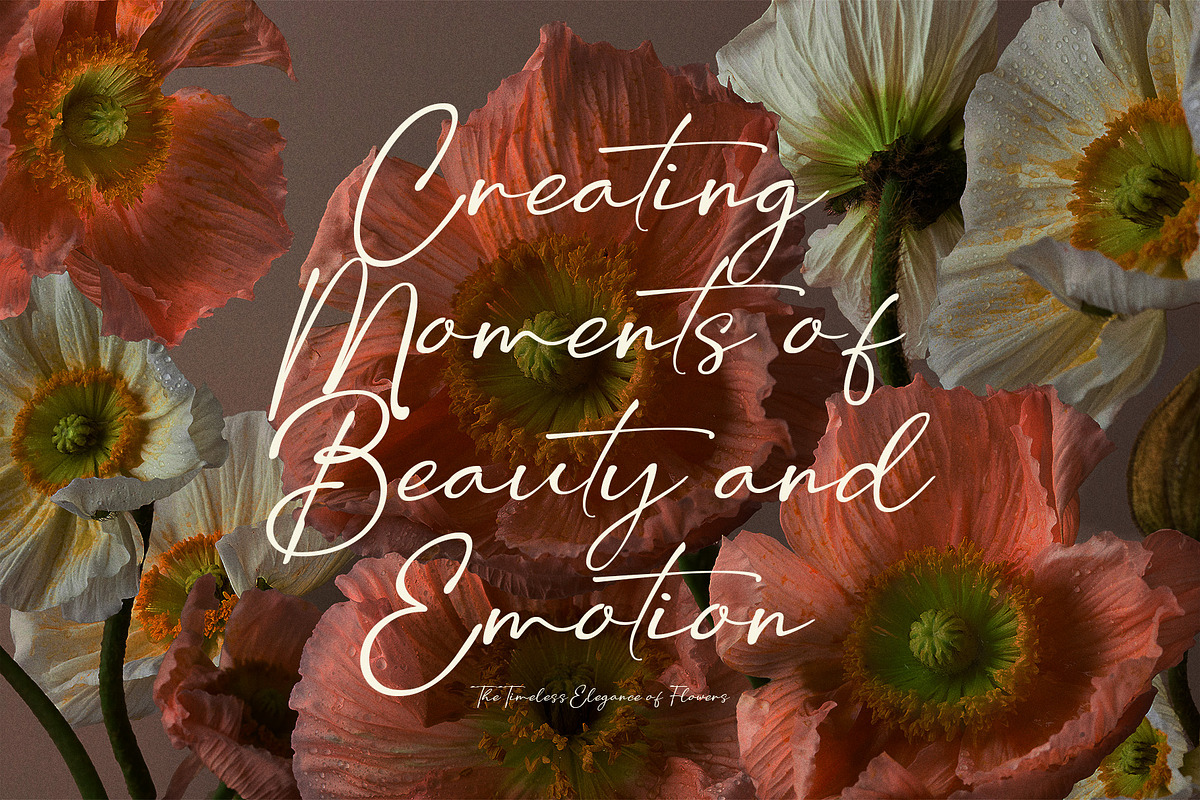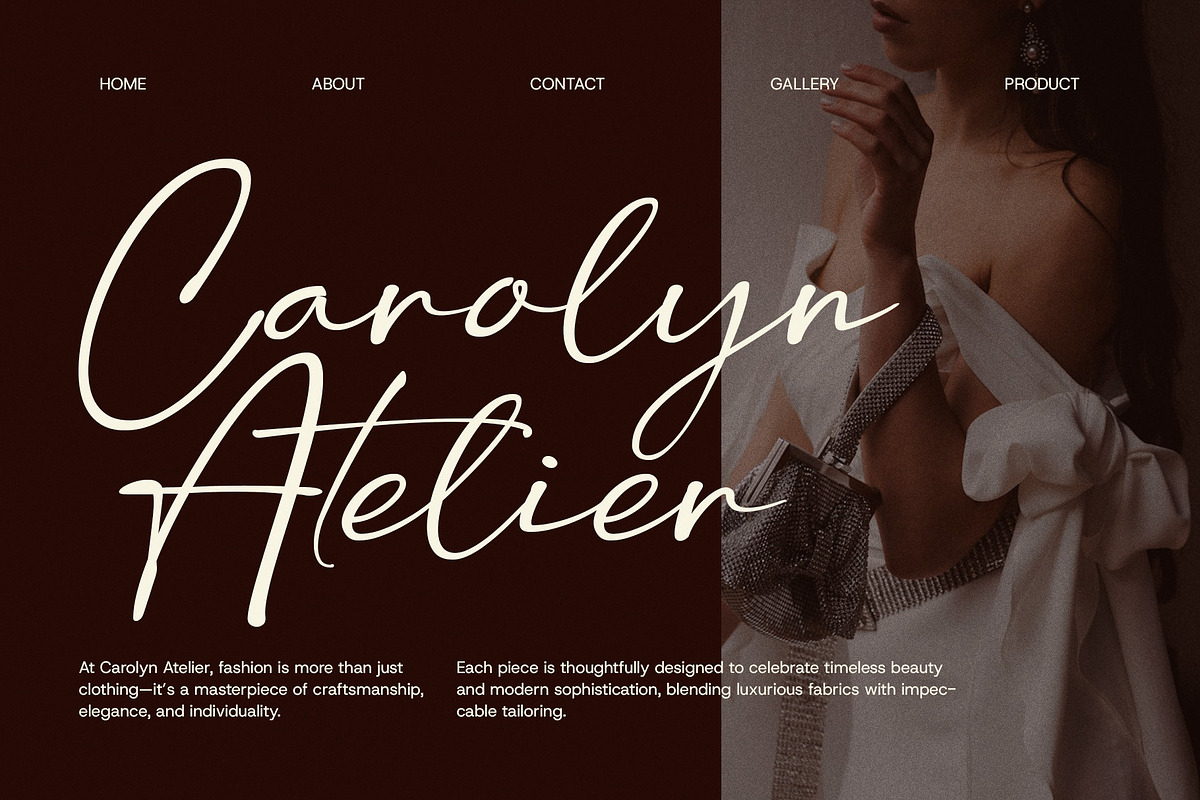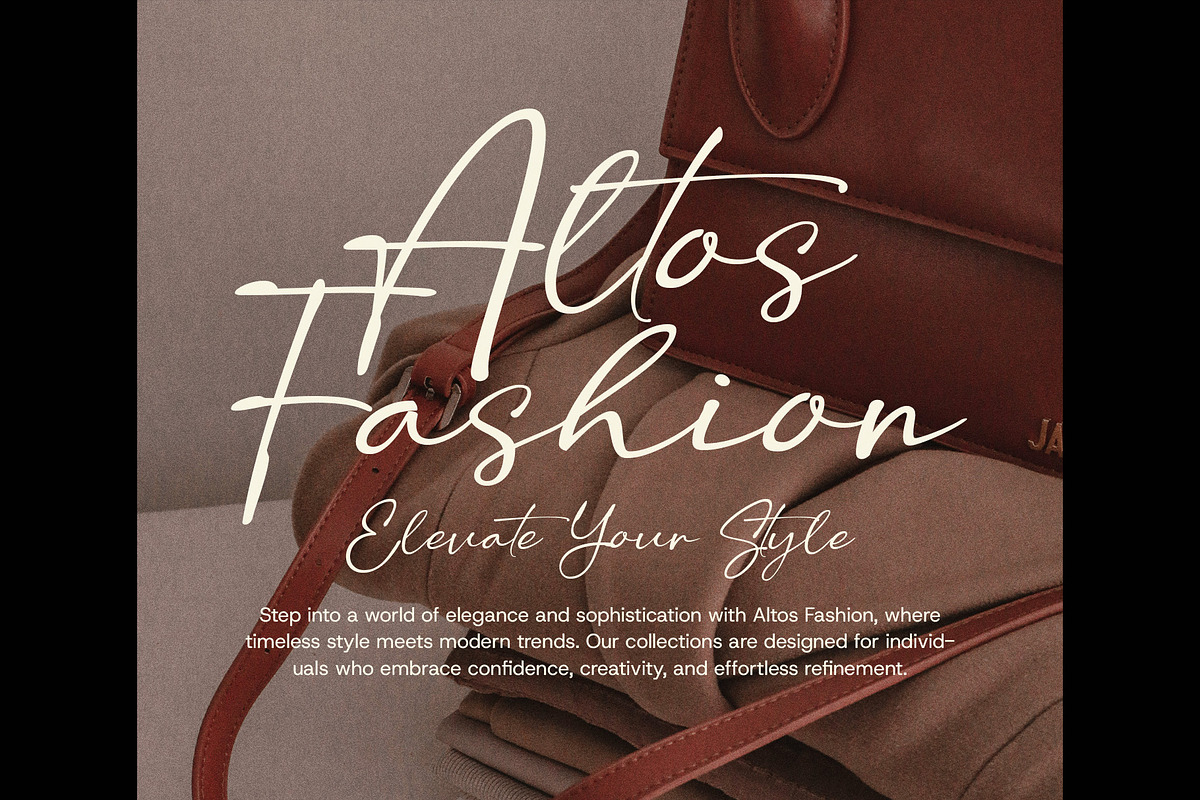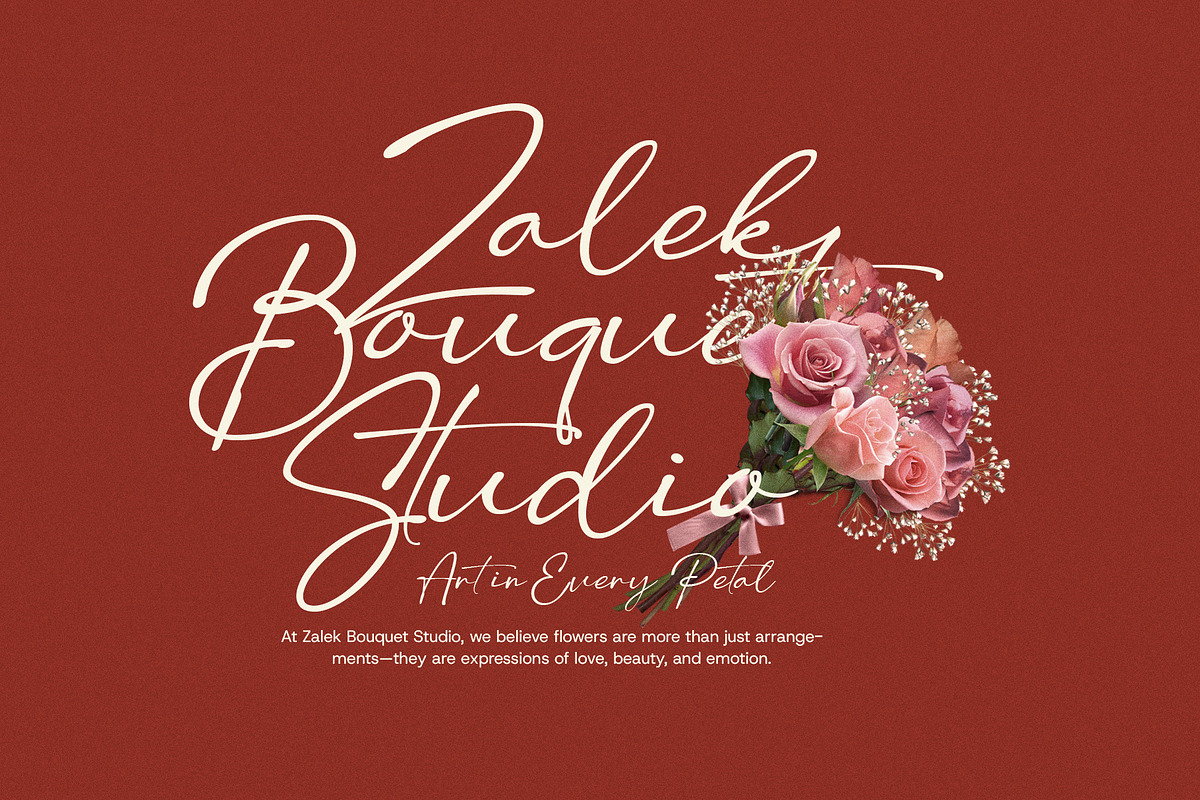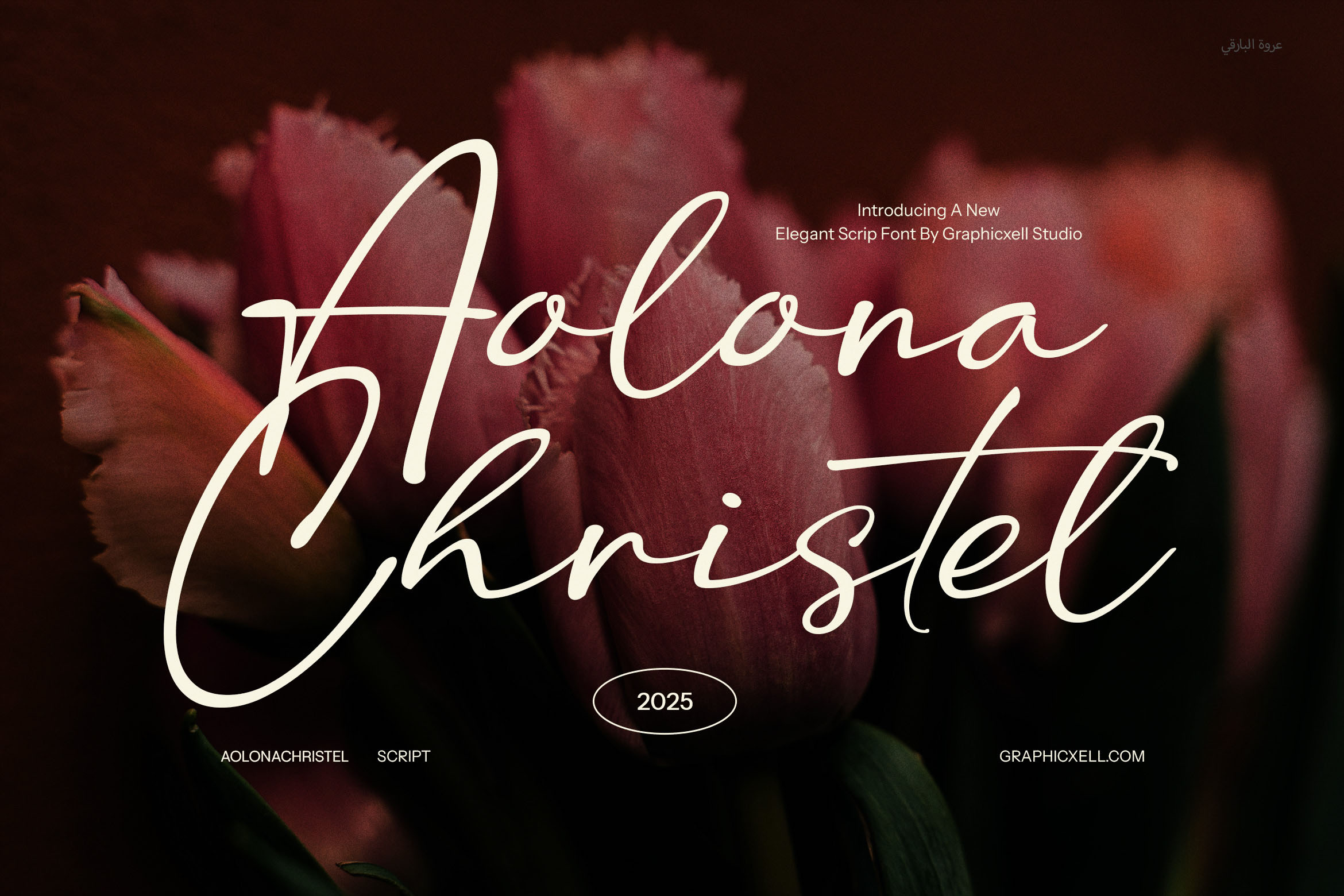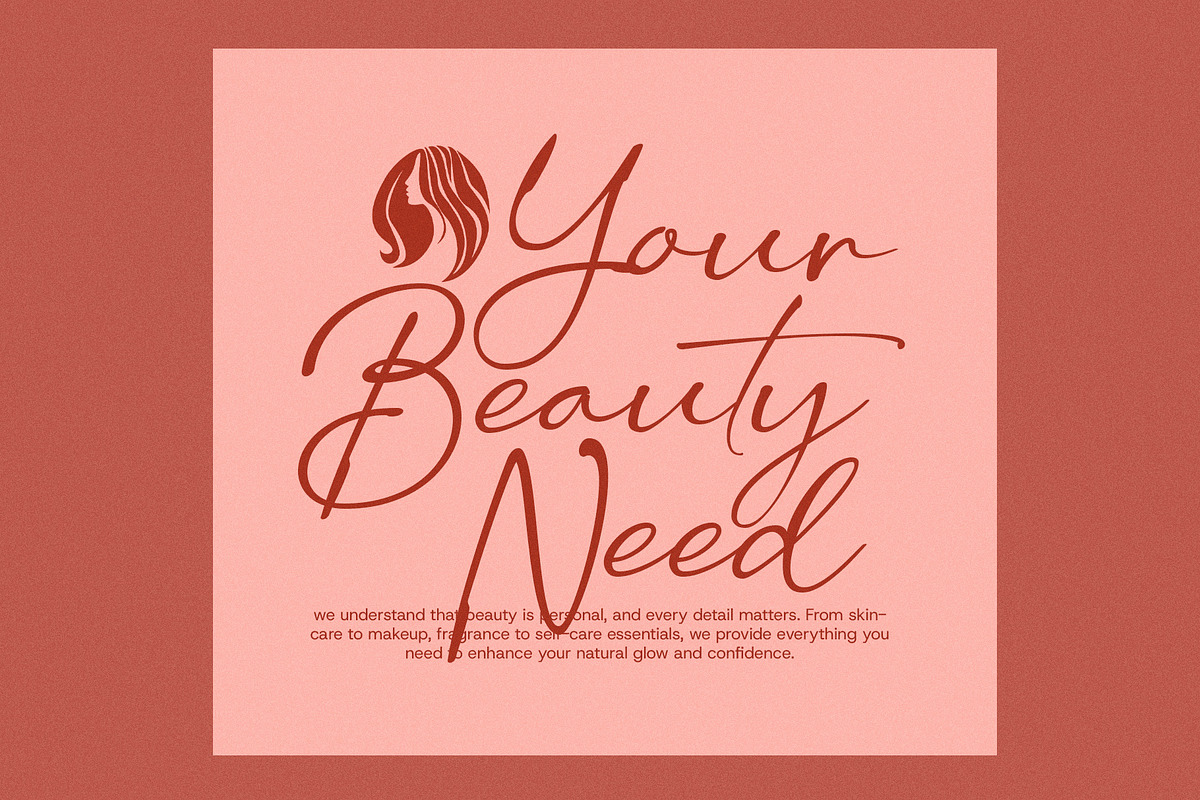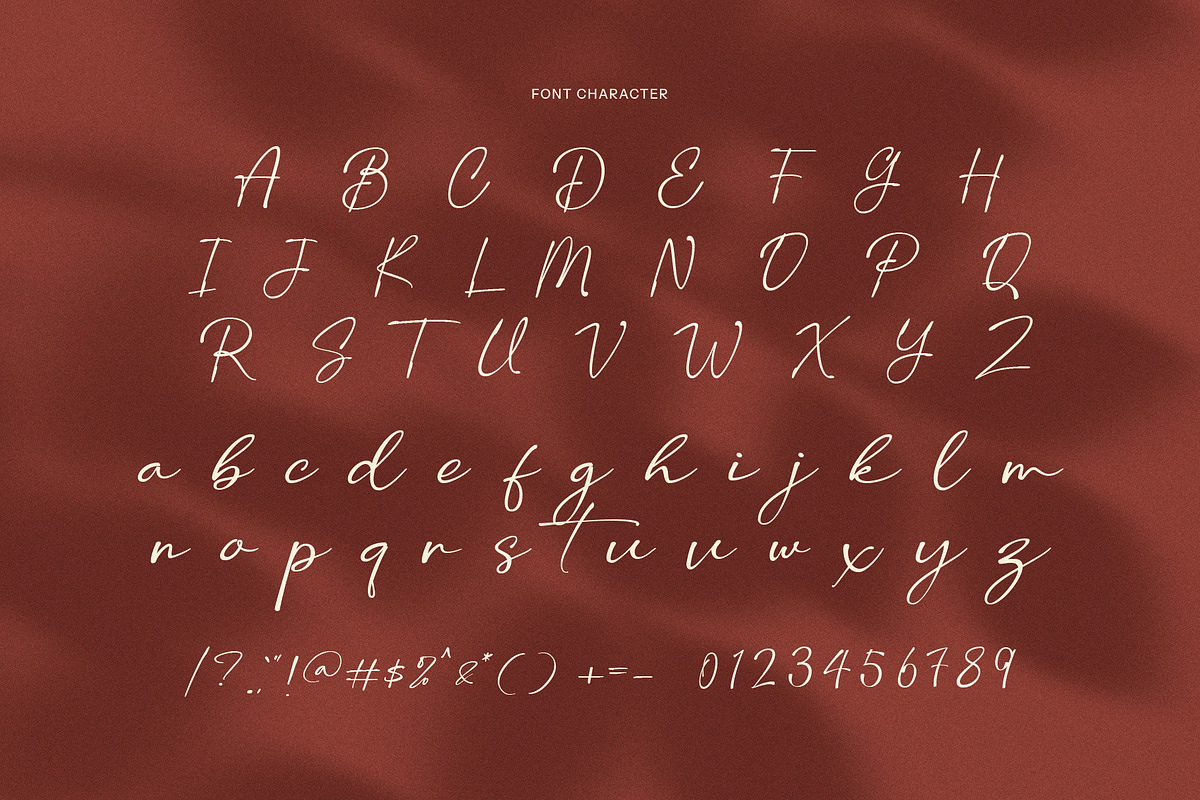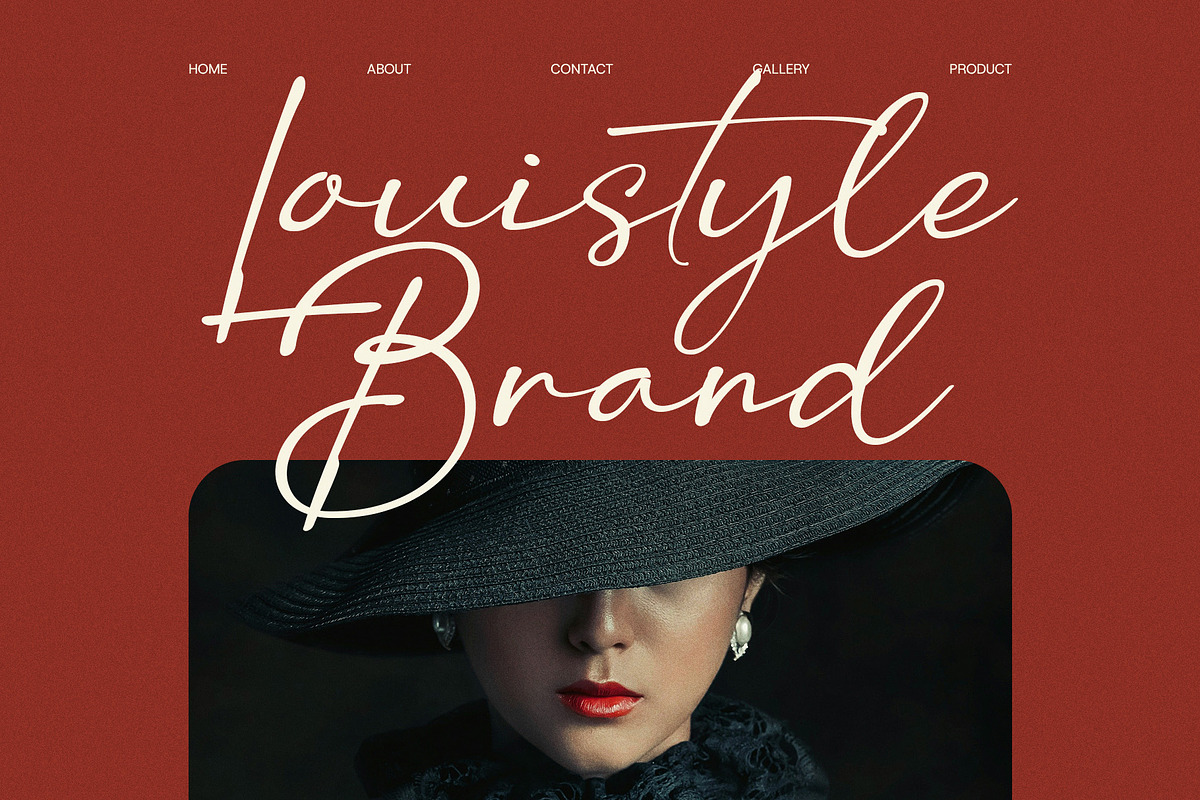
Aolona Christel Signature Font
Aolona Christel Signature Font is a stunning, elegant signature script typeface designed to add a touch of sophistication to any project. Crafted with natural hand strokes, this beautiful font exudes a personal, authentic charm that elevates your designs with a sense of class and style. Its fluid, flowing curves make it the perfect choice for projects that require an elegant and timeless feel.
Ideal for a wide range of uses, Aolona Christel Signature Font is perfect for branding, logo design, and corporate identities. It also shines in creative industries, making it a go-to choice for album covers, song titles, and film branding. Its graceful lettering adds a luxurious touch to product packaging, invitations, greeting cards, and holiday designs. Whether you’re working on a boutique, food brand, or web design, this font brings a unique flair to your content.
Aolona Christel Signature Font is more than just a typeface—it’s a versatile tool for creating memorable and high-quality designs. With its signature script style, it offers an elegant and professional aesthetic for advertisements, labels, magazines, and other promotional materials. The smooth, flowing strokes make it a perfect fit for calligraphy, invitations, and even custom wedding designs, giving every project a refined, artistic touch.
Enhance your brand or creative project with Aolona Christel Signature Font, and let it help you leave a lasting impression with its timeless beauty and undeniable elegance. This signature font is a must-have for anyone looking to add an upscale, aesthetic touch to their designs.